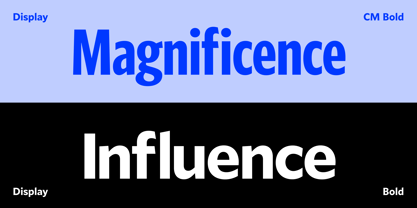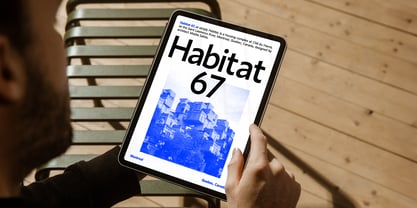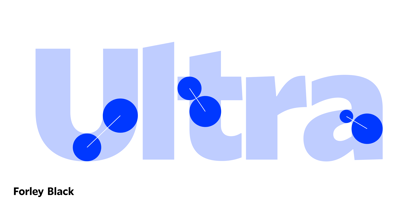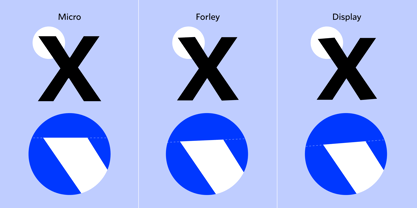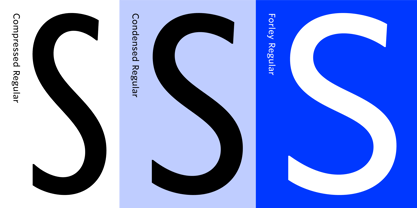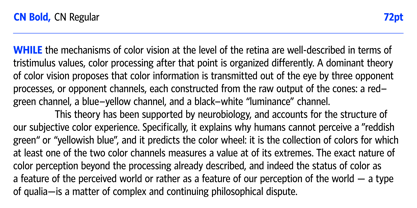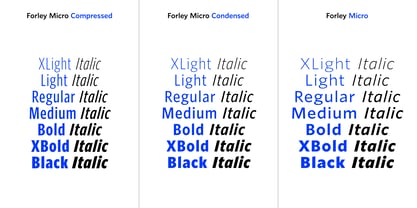
Forley™ Micro
by Monotype
The Forley Micro Font Family was designed by Jörg Hemker, Terrance Weinzierl, Monotype Design Studio and published by Monotype. Forley Micro contains 42 styles and family package options.
Reading is seeing – and seeing is understanding. Forley redefines legibility with precision craftsmanship and a balanced optical axis. Its consistent rhythm and clarity adapt seamlessly from striking headlines to comfortable body text, enhancing readability and style across all sizes.